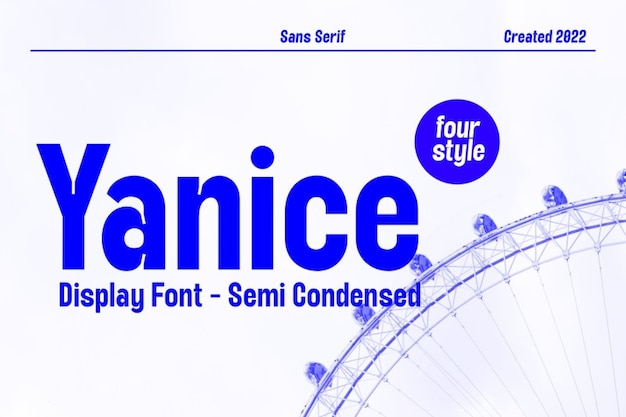
Yanice Font
Yanice is a modern and simple font designed for clarity and versatility. With clean lines and straightforward characters, it offers a basic yet stylish aesthetic suitable for a wide range of applications. Perfect for digital content, branding, or editorial projects, Yanice brings a timeless and understated elegance to your text, ensuring readability and visual appeal.